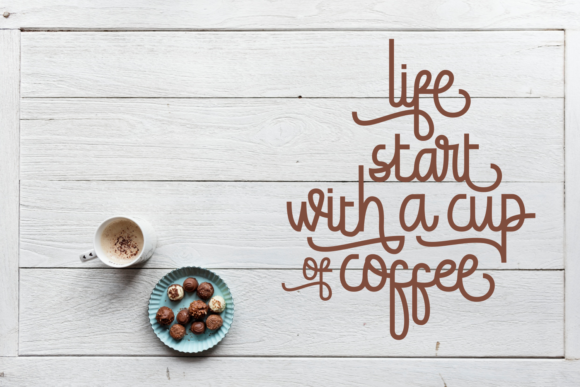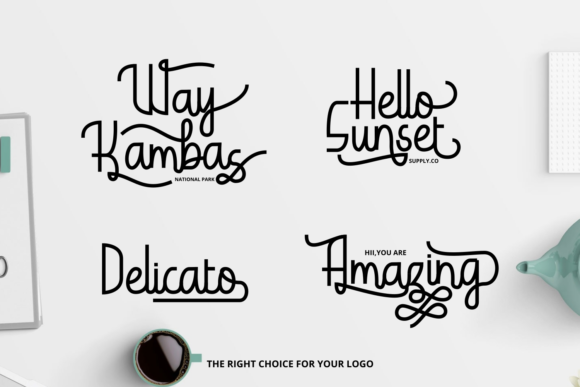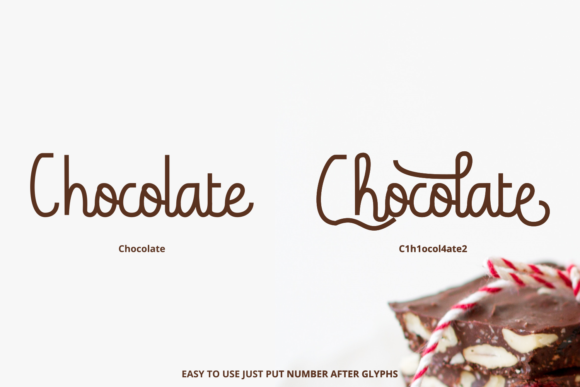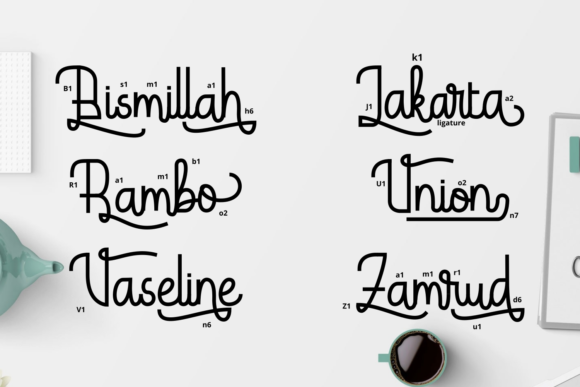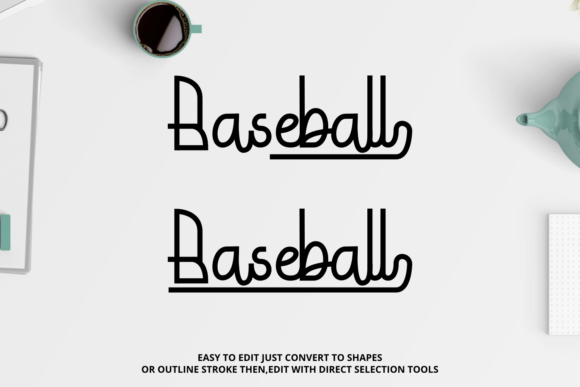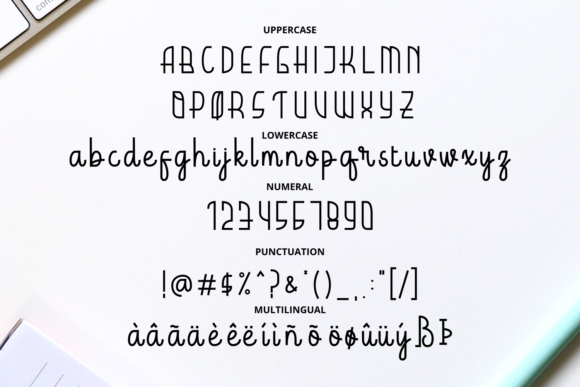
Introducing Hardolyn Font: The Ultimate Script Font for Creative Projects
In the world of typography, fonts play a crucial role in conveying messages, evoking emotions, and adding personality to designs. For designers, crafters, and creative enthusiasts, finding the right font can make all the difference in bringing their ideas to life. This is where Hardolyn Font comes in – a unique script font that has been gaining attention for its elegance, versatility, and creative possibilities.
The Hardolyn Font: A Unique Script Font
The Hardolyn is an unique script font that has captured the hearts of designers and crafters alike. Its distinctive style and flowing curves make it perfect for a wide range of applications, from quotes and invitations to advertising and more. With Hardolyn, the possibilities are endless, and there are no limitations to what you can create.
What Makes Hardolyn Font Stand Out?
So, what sets Hardolyn apart from other script fonts? Here are a few key features that make it a standout:
- Unique and Elegant Design: Hardolyn boasts a one-of-a-kind design that exudes elegance and sophistication. Its flowing curves and intricate details make it perfect for designs that require a touch of luxury and refinement.
- Versatile and Adaptable: Whether you’re creating a quote, invitation, advertisement, or any other design, Hardolyn adapts seamlessly to different contexts and styles.
- Easy to Read and Write: Despite its ornate design, Hardolyn is surprisingly easy to read and write, making it a practical choice for a wide range of applications.
Use Cases for Hardolyn Font
Hardolyn’s versatility is one of its greatest strengths. Here are some use cases that showcase its creative possibilities:
- Quotes and Sayings: Add a touch of elegance to your quotes and sayings with Hardolyn’s flowing script.
- Invitations and Announcements: Make your invitations and announcements stand out with Hardolyn’s unique and sophisticated design.
- Advertising and Marketing: Use Hardolyn to add a touch of luxury and refinement to your advertising and marketing materials.
- Branding and Packaging: Create a lasting impression with Hardolyn’s distinctive design, perfect for branding and packaging projects.
Tips for Using Hardolyn Font Effectively
To get the most out of Hardolyn, here are some tips to keep in mind:
- Experiment with Different Sizes and Colors: Play around with different sizes and colors to find the perfect combination for your design.
- Pair with Complementary Fonts: Pair Hardolyn with complementary fonts to create a harmonious and visually appealing design.
- Use for Headlines and Titles: Use Hardolyn for headlines and titles to add a touch of elegance and sophistication.
In conclusion, Hardolyn Font is a unique and versatile script font that offers a world of creative possibilities for designers, crafters, and creative enthusiasts. With its elegant design, adaptability, and ease of use, Hardolyn is perfect for a wide range of applications, from quotes and invitations to advertising and more. So why not give Hardolyn a try and see what amazing creations you can come up with?